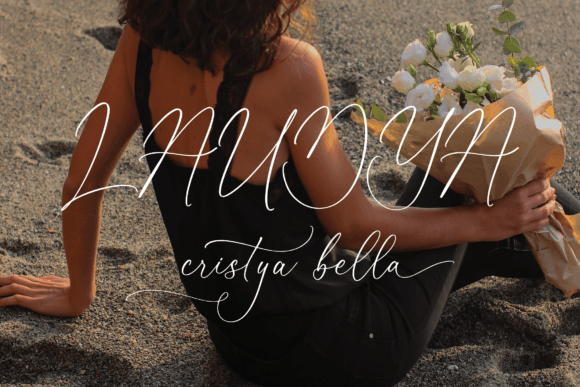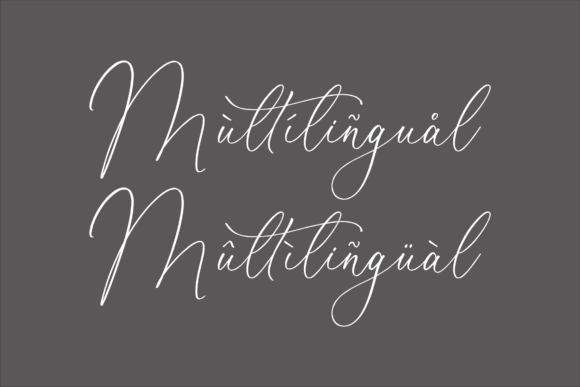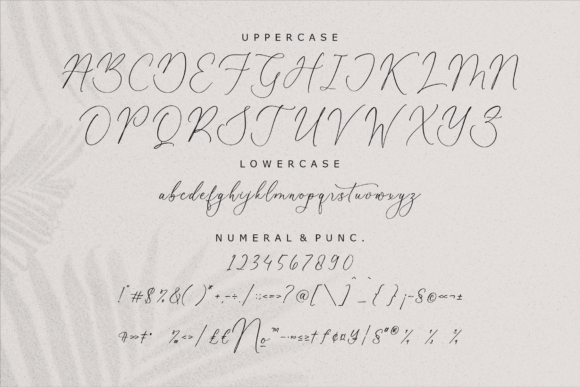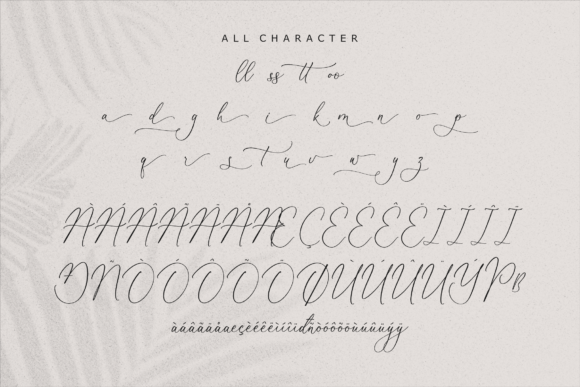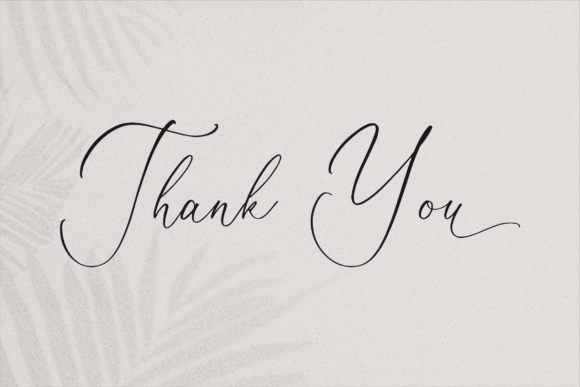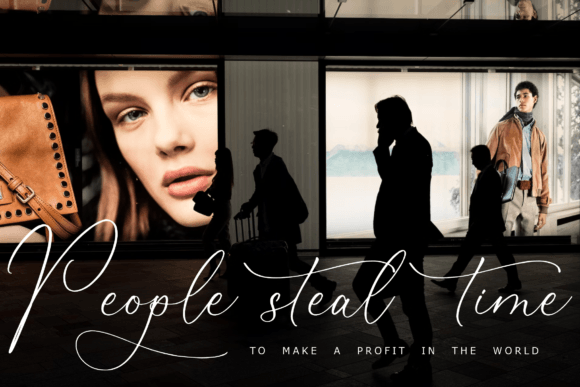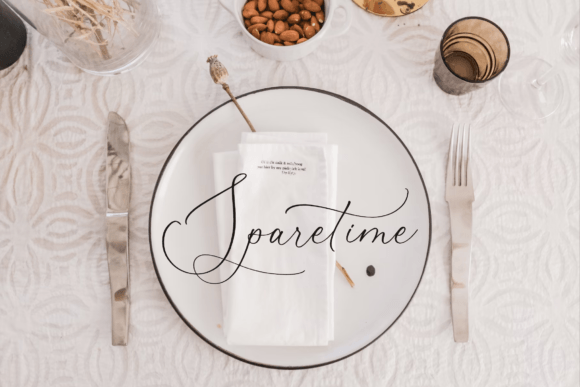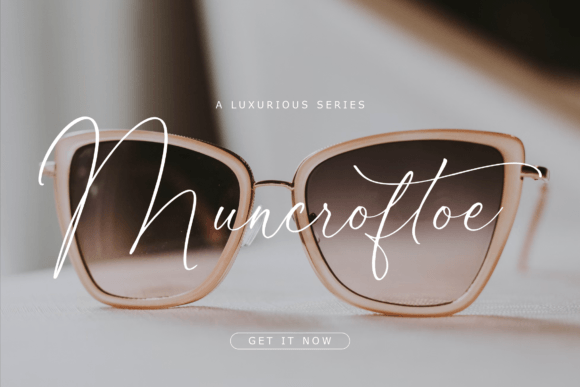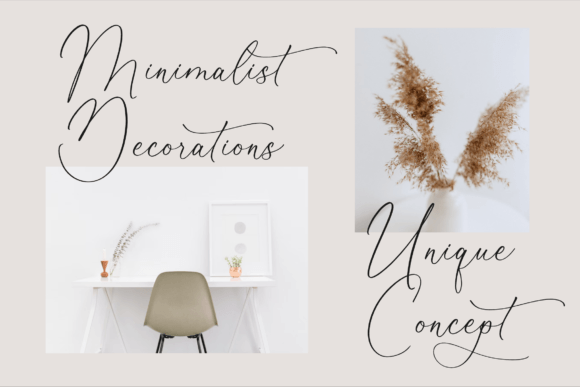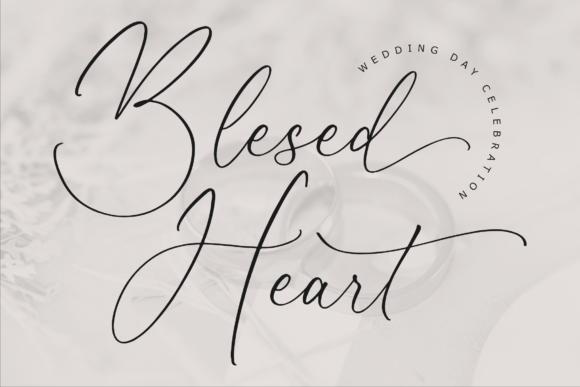
Beatrice Clorophil Font
A Dazzling and Detailed Script Font
Beatrice Clorophil is an exquisite script font that brings elegance and charm to any project. Each letter has smooth curves and carefully crafted details that feel both refined and artistic. The font’s graceful flow creates a polished look that helps your words stand out with confidence and beauty.
Whether you’re working on personal projects or professional branding, Beatrice Clorophil delivers a unique, eye-catching touch that feels sophisticated.
Beatrice Clorophil is a versatile font that adapts effortlessly to a variety of design needs. It’s ideal for wedding invitations, save-the-date cards, and elegant event materials. The flowing strokes and detailed shapes create a romantic, timeless atmosphere.
Use Beatrice Clorophil for logos, business cards, and product packaging. The script style adds a handcrafted feel that elevates your brand and helps it feel memorable.
This font also works beautifully on social media graphics, blog headers, and digital content where you want to grab attention with style.
Beatrice Clorophil shines in quotes, posters, and greeting cards. The refined look makes every message feel personal and special.
The font includes uppercase and lowercase letters, numbers, and punctuation marks. Ligatures help your text flow naturally and look cohesive.
Clear, Elegant, and Easy to Read
Even though Beatrice Clorophil has a decorative script style, it remains clear and easy to read at any size. The balanced spacing ensures your text feels neat and professional, whether it’s used in large headlines or smaller captions.
Many designers pair Beatrice Clorophil with a clean sans-serif font to create contrast. Use Beatrice Clorophil for titles and the sans-serif for supporting text. This combination helps guide the reader’s eye and keeps layouts modern and organized.
To bring out Beatrice Clorophil’s elegance, use soft backgrounds and neutral color palettes. Shades like ivory, blush, and pale gray allow the fine details to shine without distraction.
When designing wedding stationery or luxury branding, consider adding watercolor illustrations or delicate floral elements. For social media graphics, keep layouts minimal so the script remains the main focus.
Think about the mood you want to create. Beatrice Clorophil is perfect for designs that should feel refined, romantic, and sophisticated.
Beatrice Clorophil is more than just a dazzling script font. It’s a design tool that transforms ordinary text into something extraordinary. Its smooth curves and intricate details bring personality and beauty to every project.